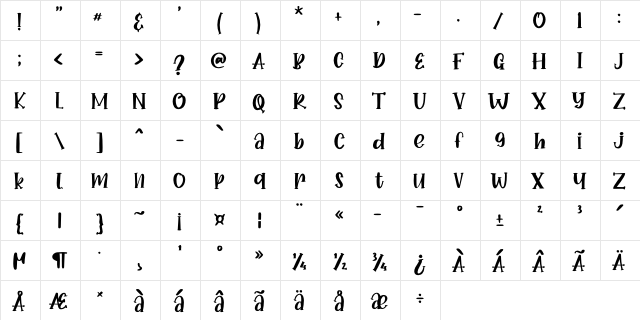
Donkey Casting Regular
| Designer | Sarwo Edhi Prayitno |
Design Context for Donkey Casting Typeface
Donkey Casting is a composed and adaptable typeface that performs quietly and consistently across a wide range of design contexts.